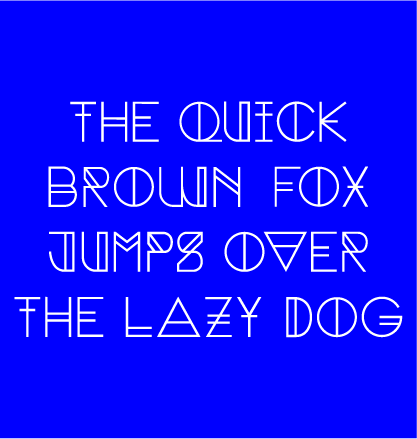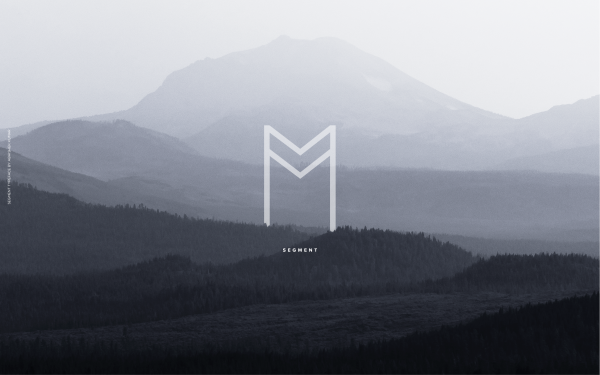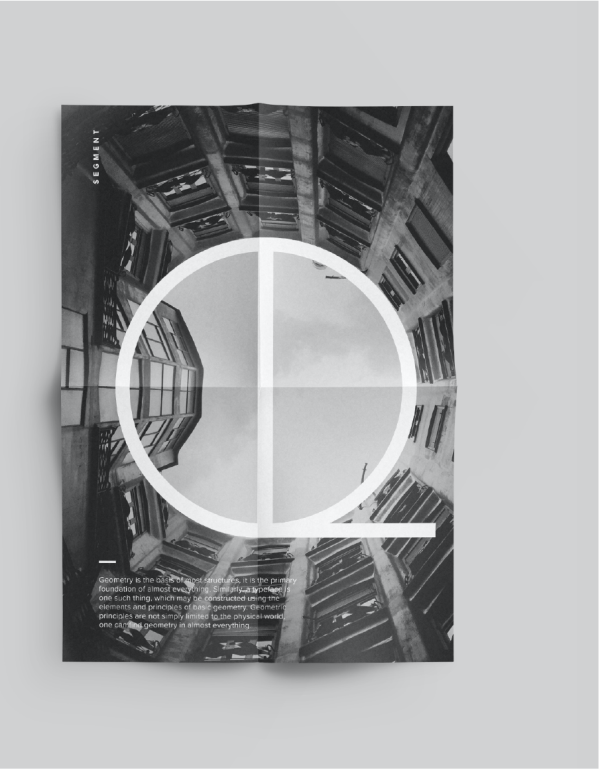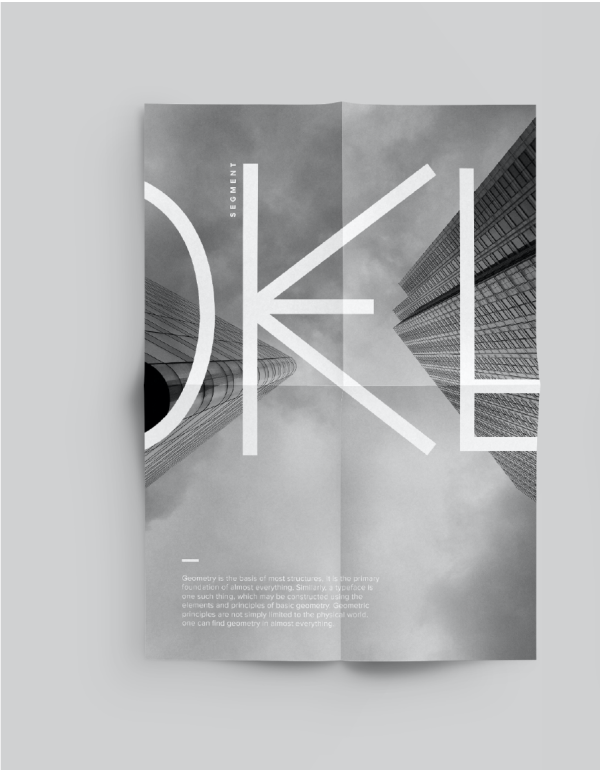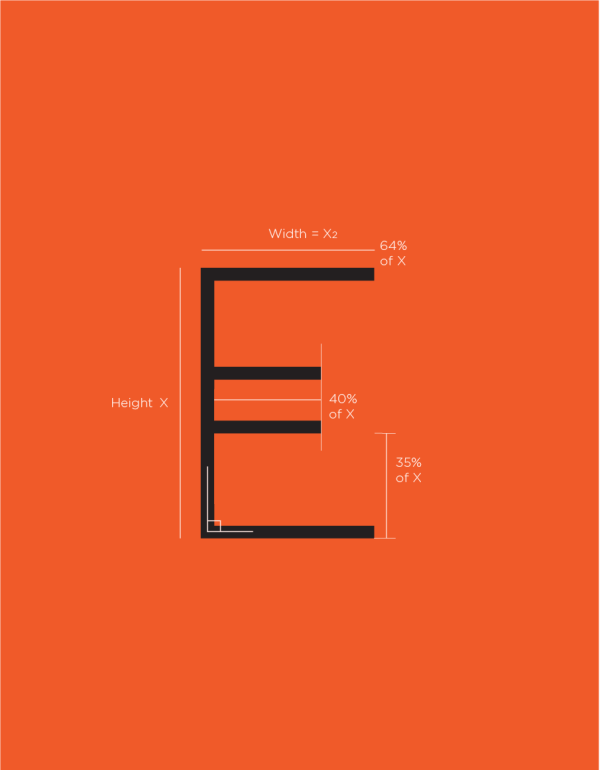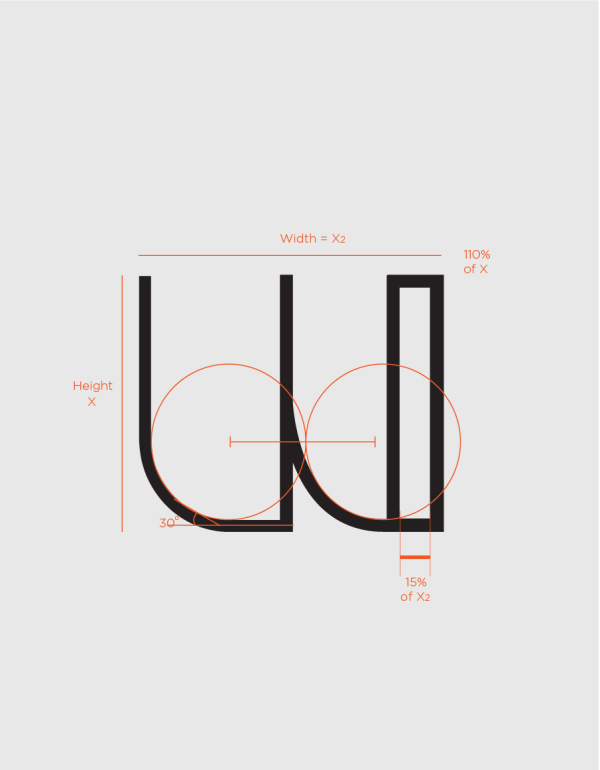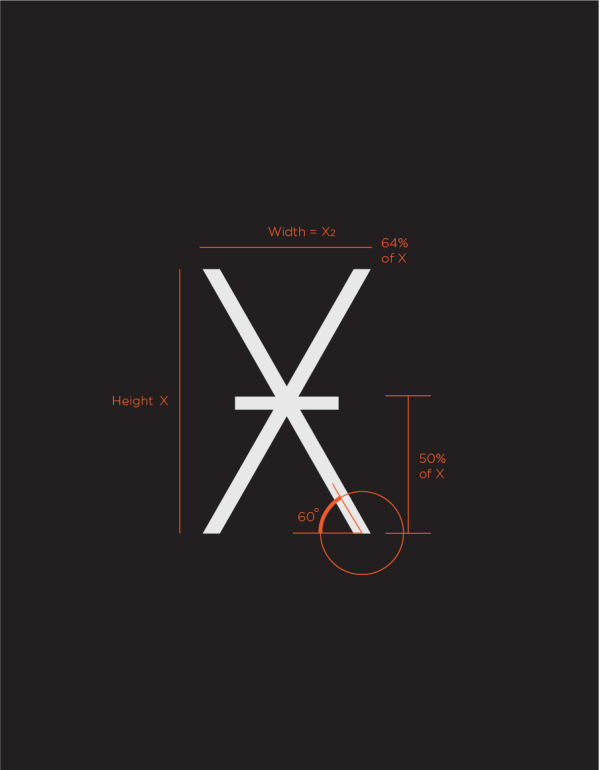
Segment
Geometry is the basis of most structures, it is the primary foundation of almost everything. Similarly, a typeface is one such thing, which may be constructed using the elements and principles of basic geometry. Geometric principles are not simply limited to the physical world, one can find geometry in almost everything.
The idea behind this project is to merge the gap between type design and classroom geometry, and highlight the intersection of the two.